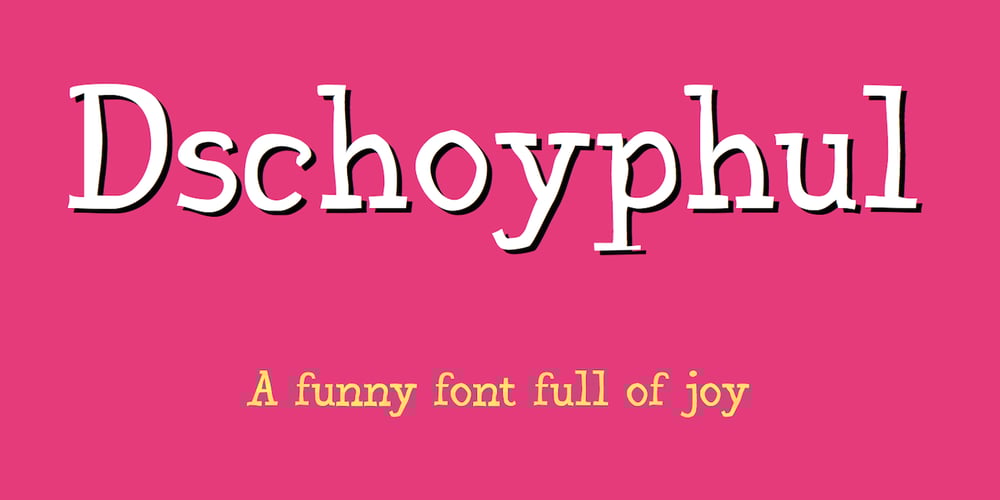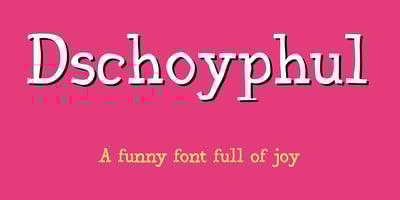
Dschoyphul Font Family was designed by Robert Schenk and published by Ingrimayne Type. Dschoyphul contains 4 styles and family package options. Dschoyphul is a serifed typeface that was crudely drawn with a pen. It is sloppy and irregular. It was one of several efforts to draw a serifed typeface by pen; see also SarahfSlob, which contains a complete family of styles.